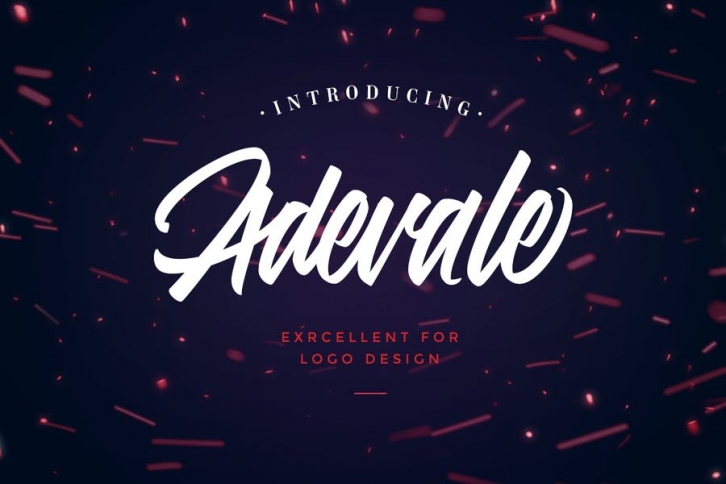
Adevale is font combines with the alternate character font to make each word unique. Then add the Name your company font as your tagline and — the ideal logo!